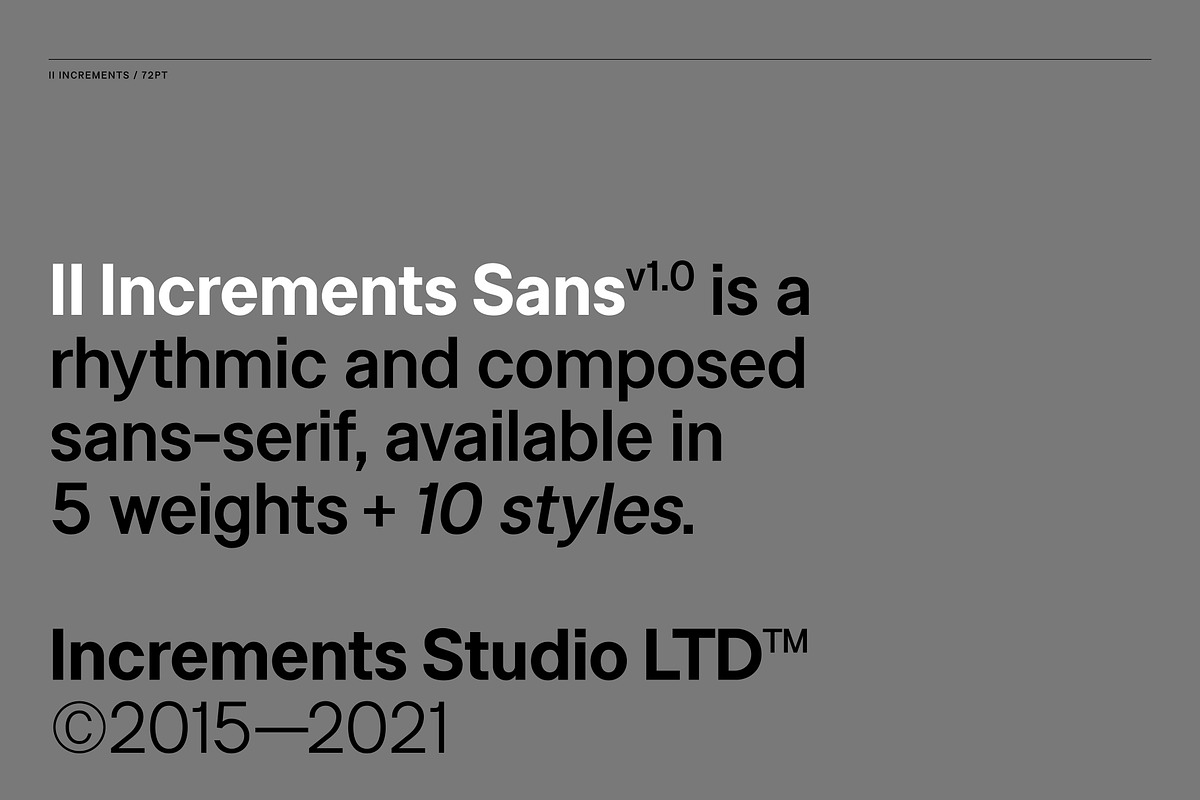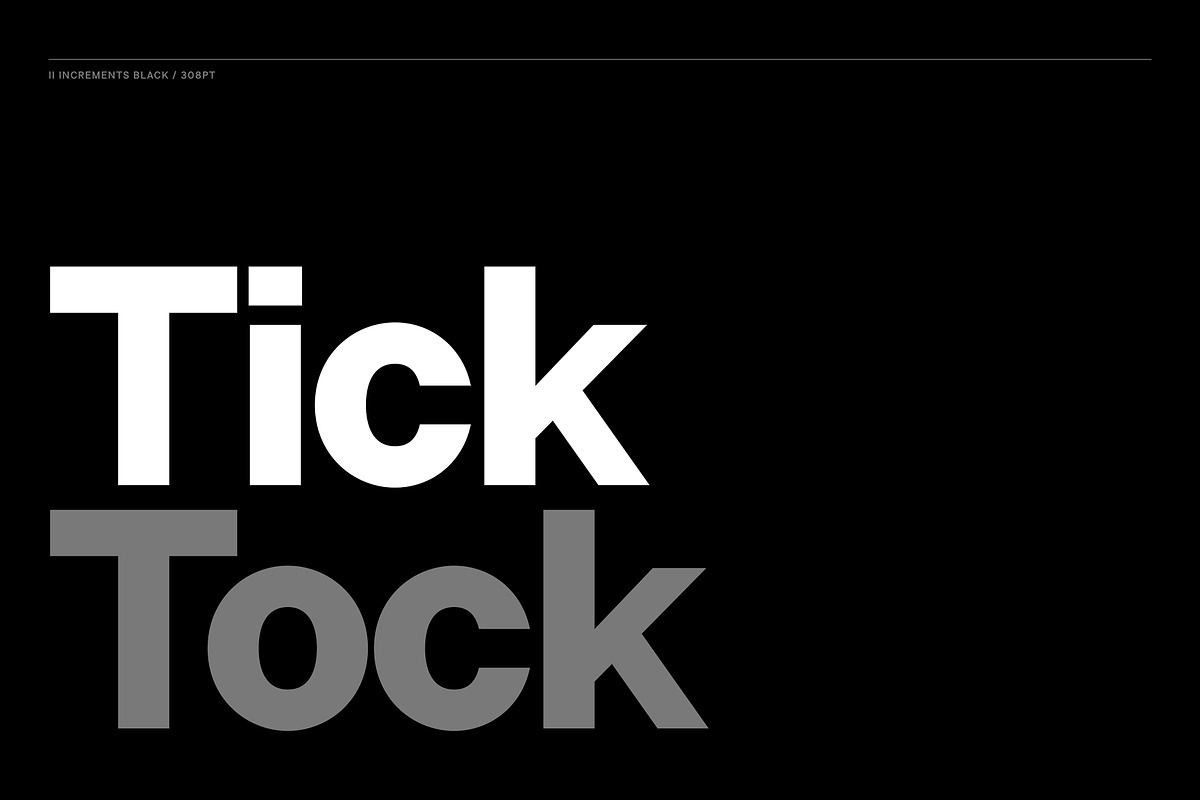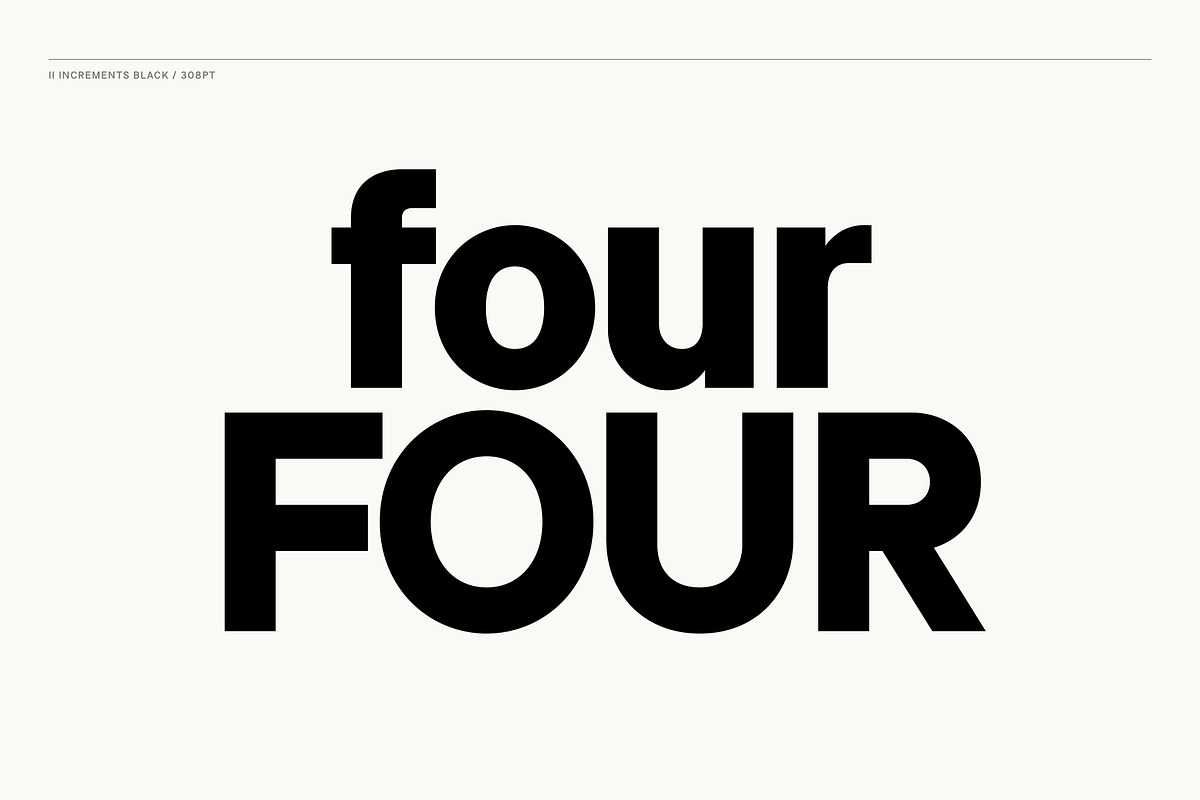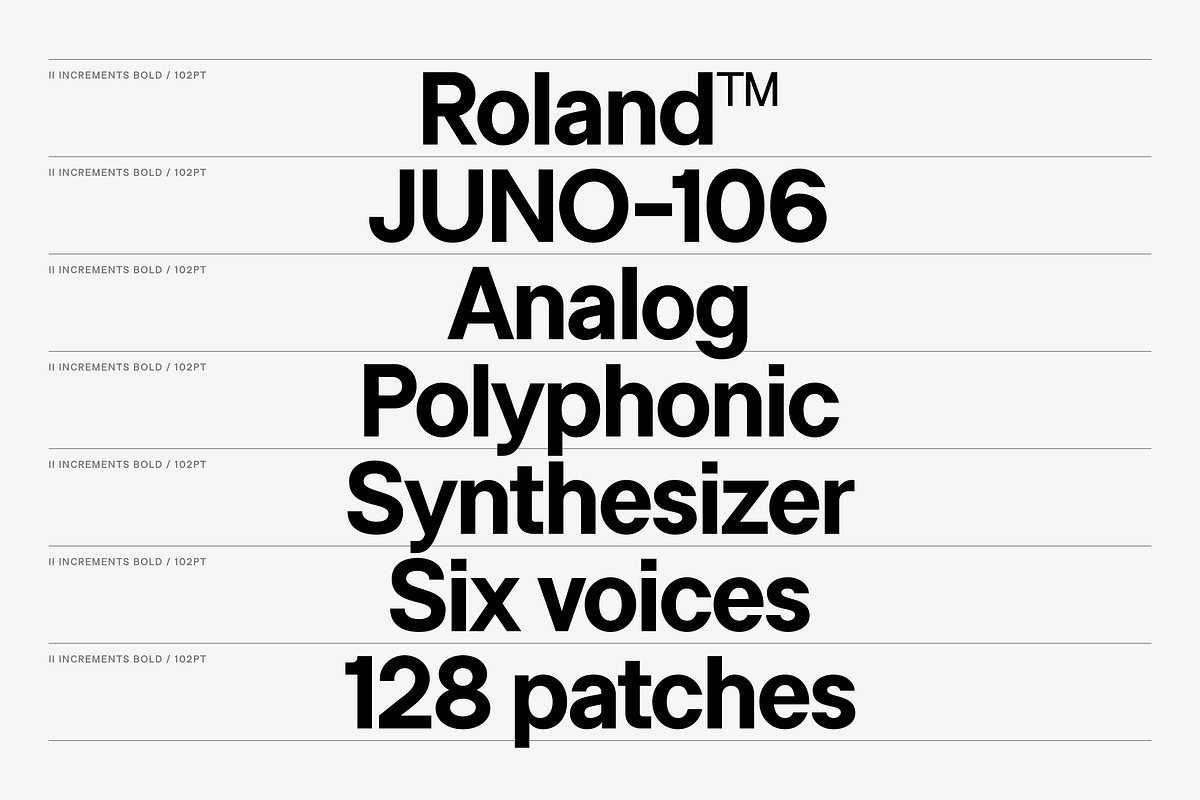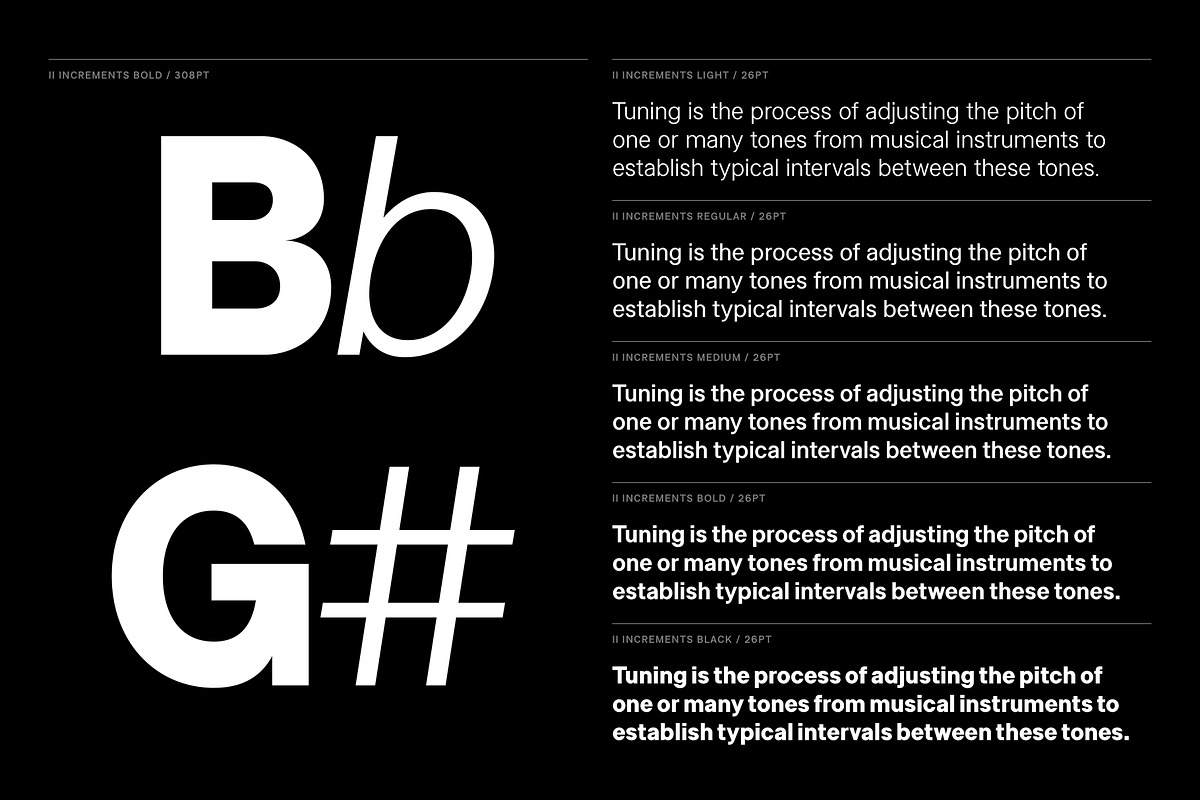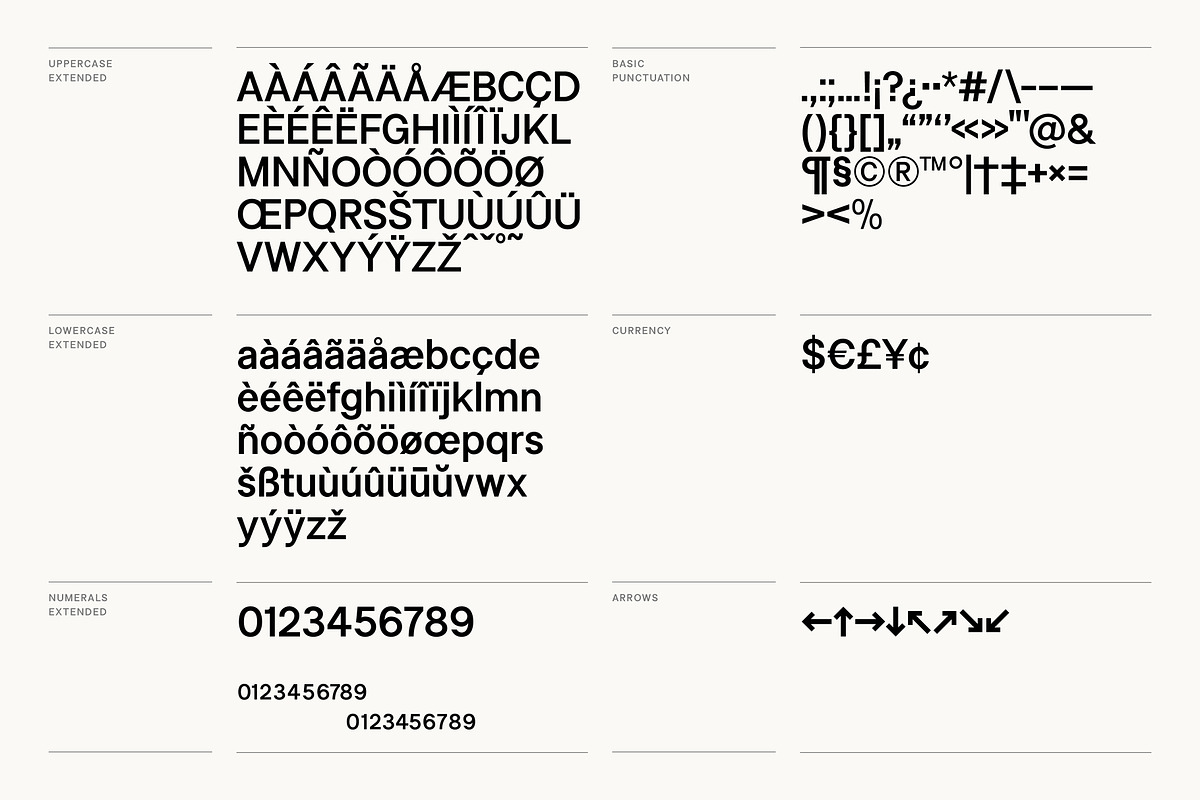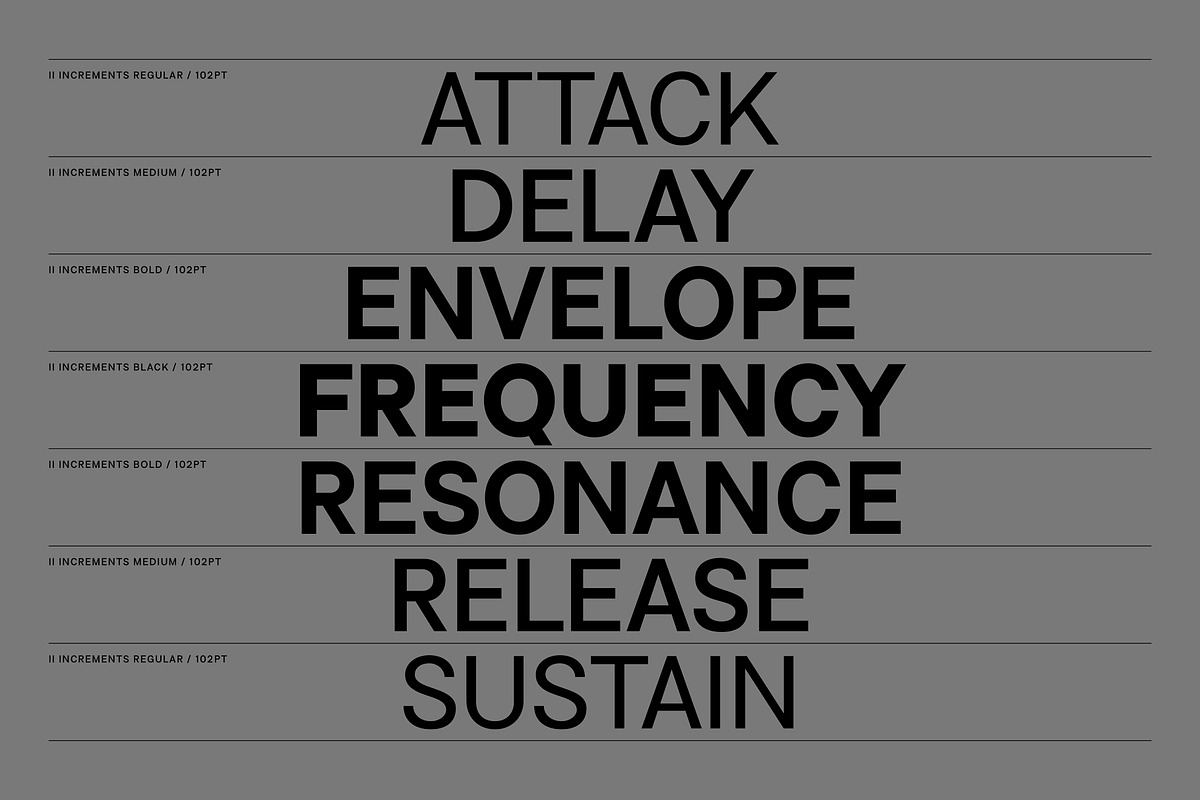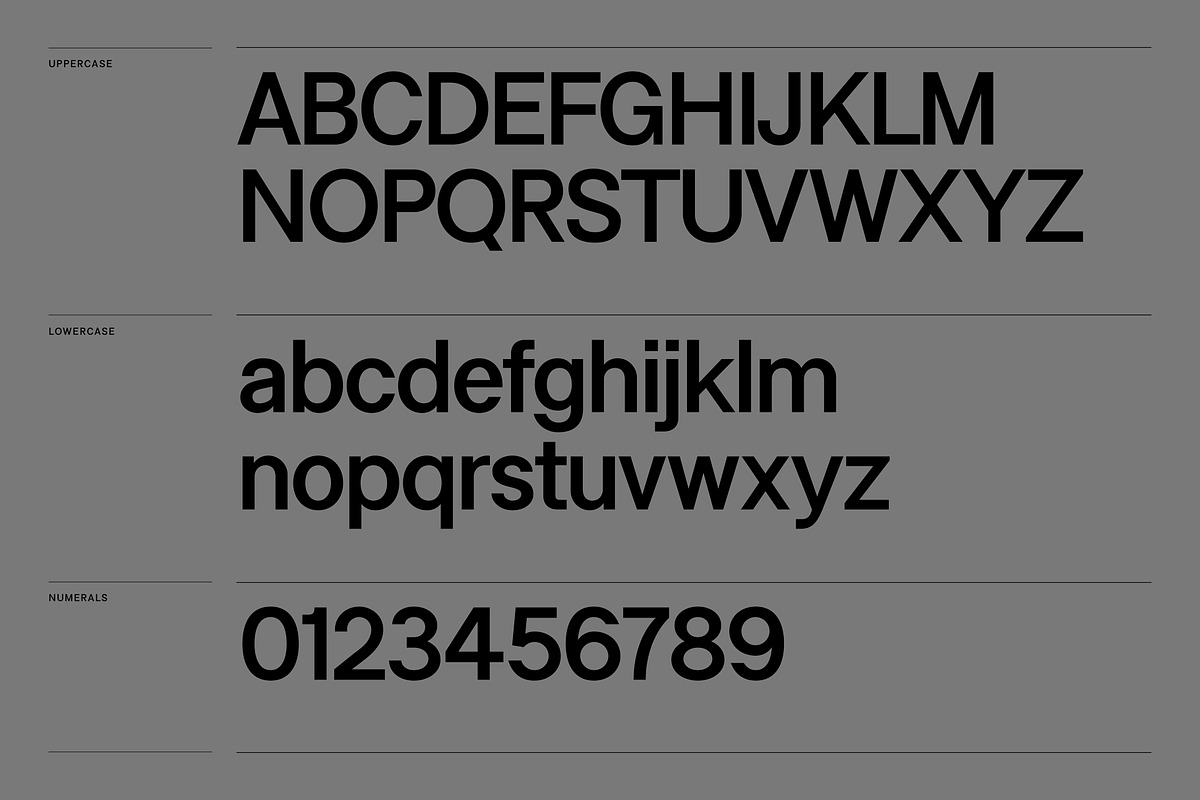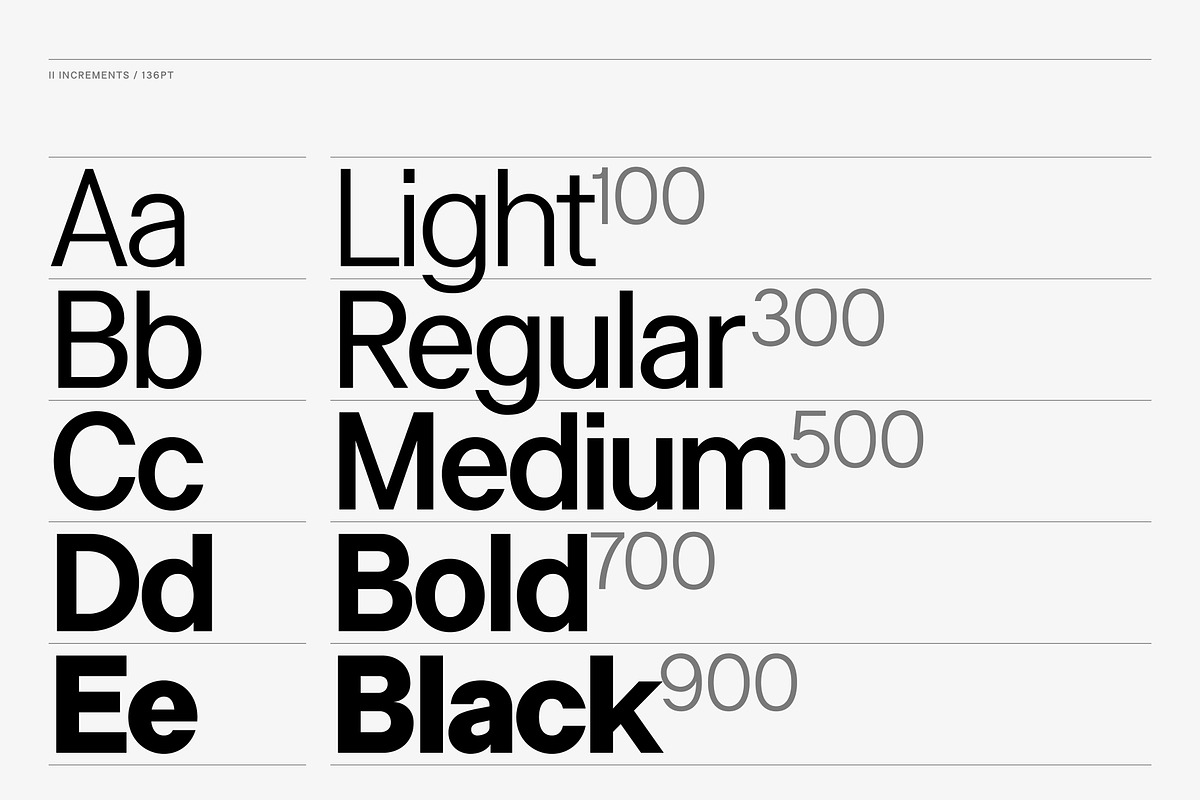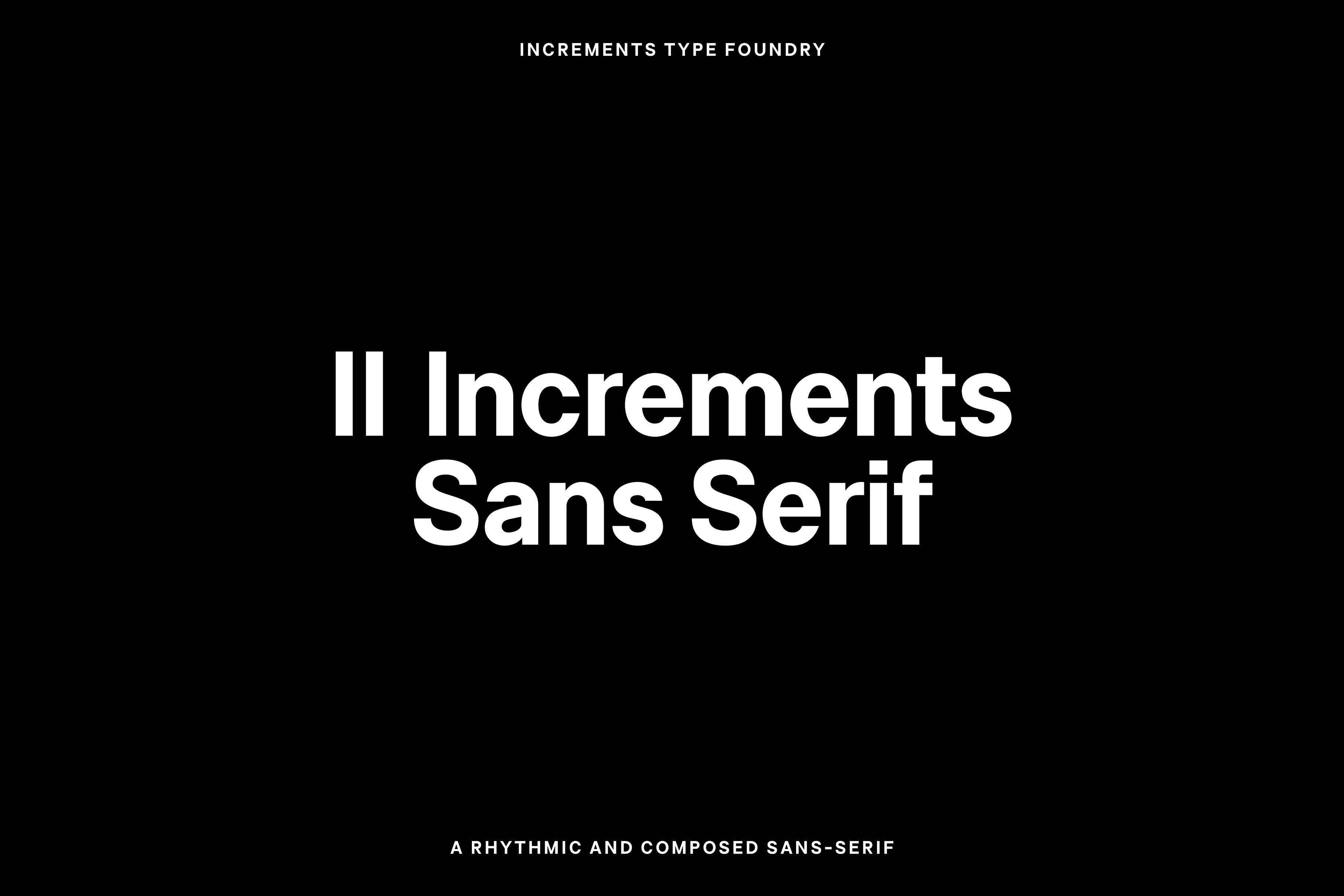
II Increments: Sans Serif Font
Informed by classic grotesk proportions and principles within musical theory, II Increments Sans results in a rhythmic and composed sans-serif. Set within a structured grid, the intonation and harmony between its functional principles and emotive characteristics allow for use at both text and display sizes.